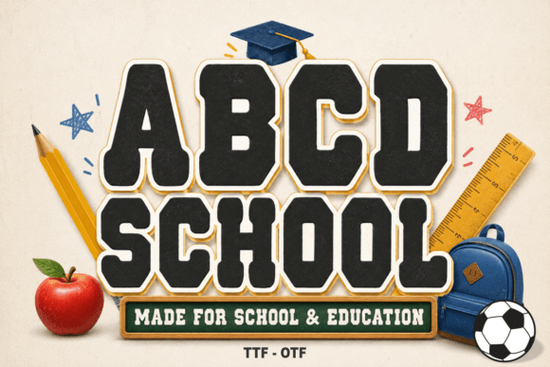
Abcd School Font is a standout choice for anyone looking to add a playful yet professional touch to their designs. This bold, chunky display font brings a sense of energy and nostalgia, making it perfect for educational projects, classroom decorations, and creative crafts. Whether you're a teacher, student, or hobbyist, this font can help you make your work stand out with its unique style.
If you're searching for fonts that capture the spirit of school days, Abcd School Font is a great option. It’s designed to evoke the feel of classic collegiate lettering while maintaining a friendly and approachable look. The thick strokes and clear structure make it easy to read, even at larger sizes, which is essential for headlines and signage.
What Makes Abcd School Font Unique?
Unlike many other fonts, Abcd School Font combines a strong visual presence with a warm, inviting personality. Its bold structure gives it a commanding presence, while the subtle details add a sense of charm. This balance makes it suitable for a wide range of applications, from graduation announcements to school-themed apparel.
The font’s versatility is another major benefit. You can use it for both digital and physical projects, such as social media graphics, t-shirt designs, or printed materials. Its clean lines ensure that it looks sharp in any format, whether you're working on a computer screen or a physical product.
For those who enjoy experimenting with different styles, Abcd School Font offers a fresh alternative to more traditional fonts. It’s ideal for creating eye-catching headlines that draw attention without being overwhelming. Its playful tone also makes it a good fit for children's products or educational content aimed at younger audiences.
When working with Abcd School Font, consider the context of your project. For example, if you're designing a classroom poster, the font’s boldness will help it stand out from other elements. If you're creating a logo or brand identity, its friendly appearance can add a welcoming feel to your design.
It’s also worth exploring how the font pairs with other typefaces. While it works well as a standalone headline, combining it with a simpler, more neutral font can create a balanced and professional look. This approach is especially useful for marketing materials or presentations where clarity is important.
For crafters and DIY enthusiasts, Abcd School Font is a valuable addition to your design toolkit. It can be used on custom signs, banners, and handmade items, giving your creations a polished and cohesive appearance. Its compatibility with cutting machines ensures that you can bring your ideas to life with ease.
Whether you're designing for school, business, or personal use, Abcd School Font is a reliable and stylish choice. Its combination of boldness and friendliness makes it a versatile tool for any designer or creator. With its easy compatibility and appealing aesthetic, it’s sure to become a favorite in your collection.